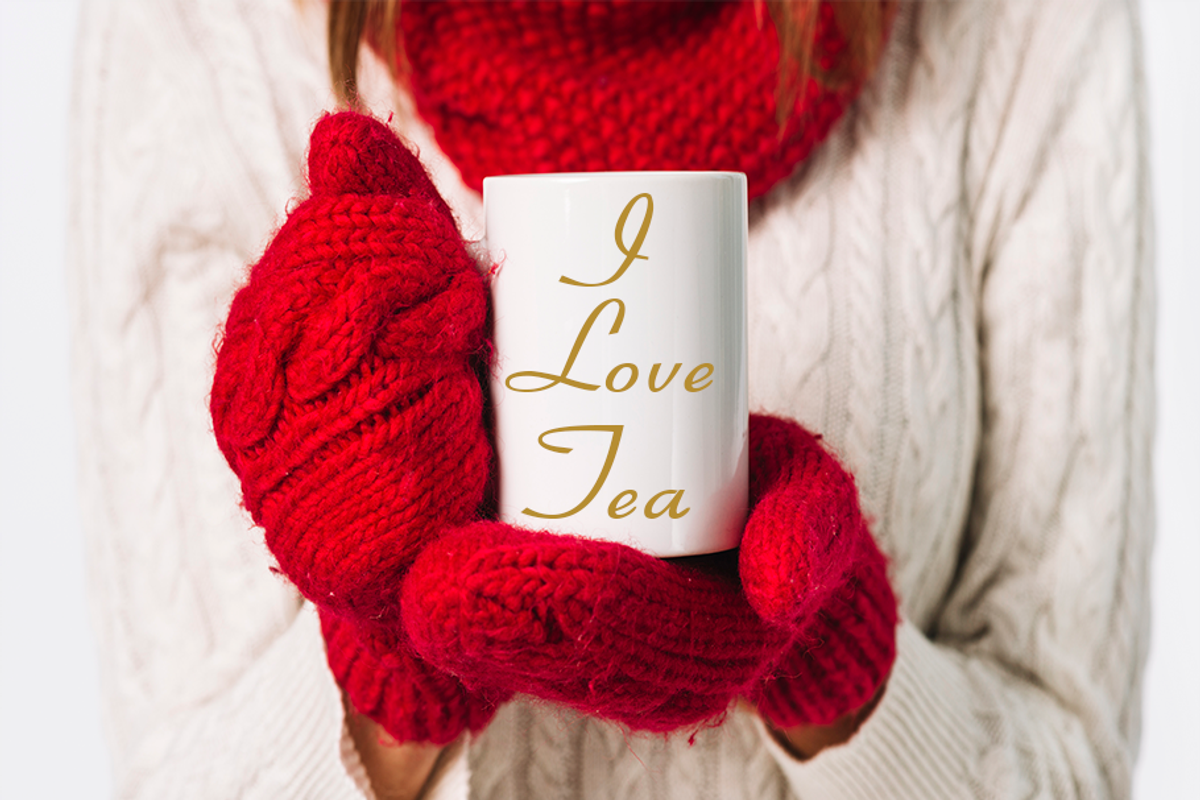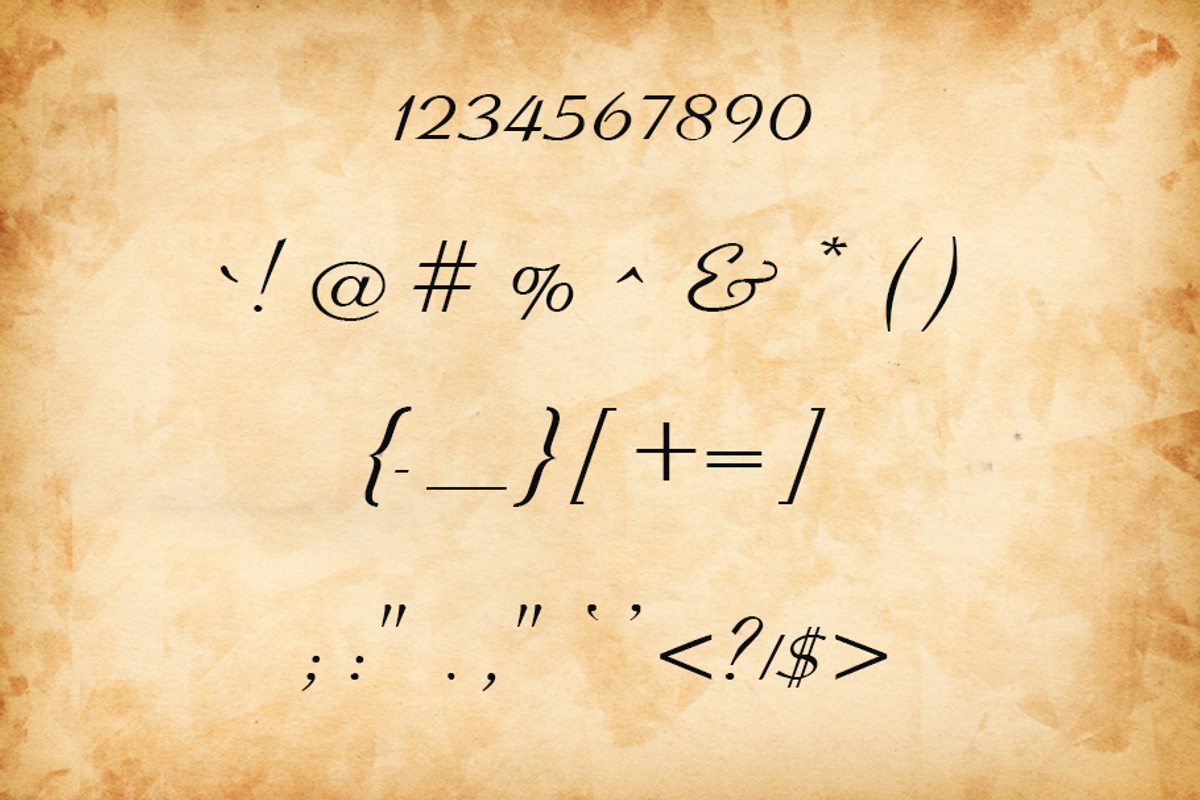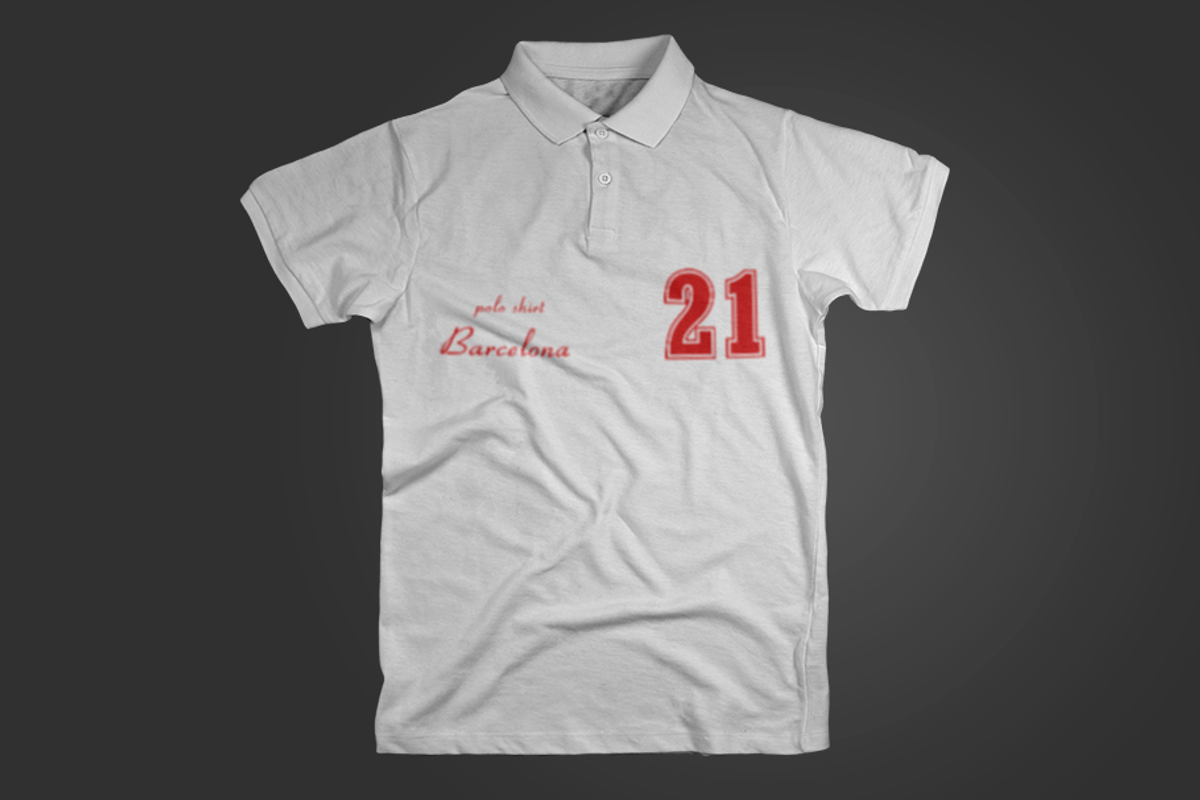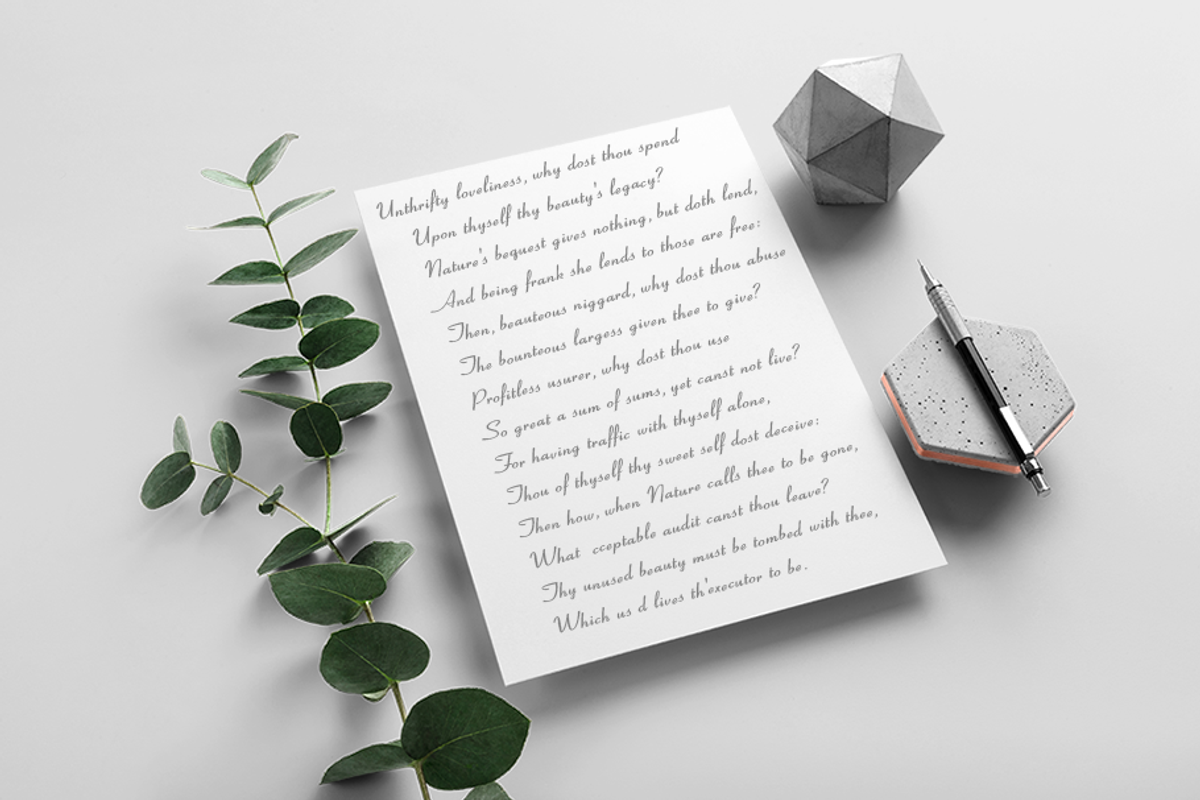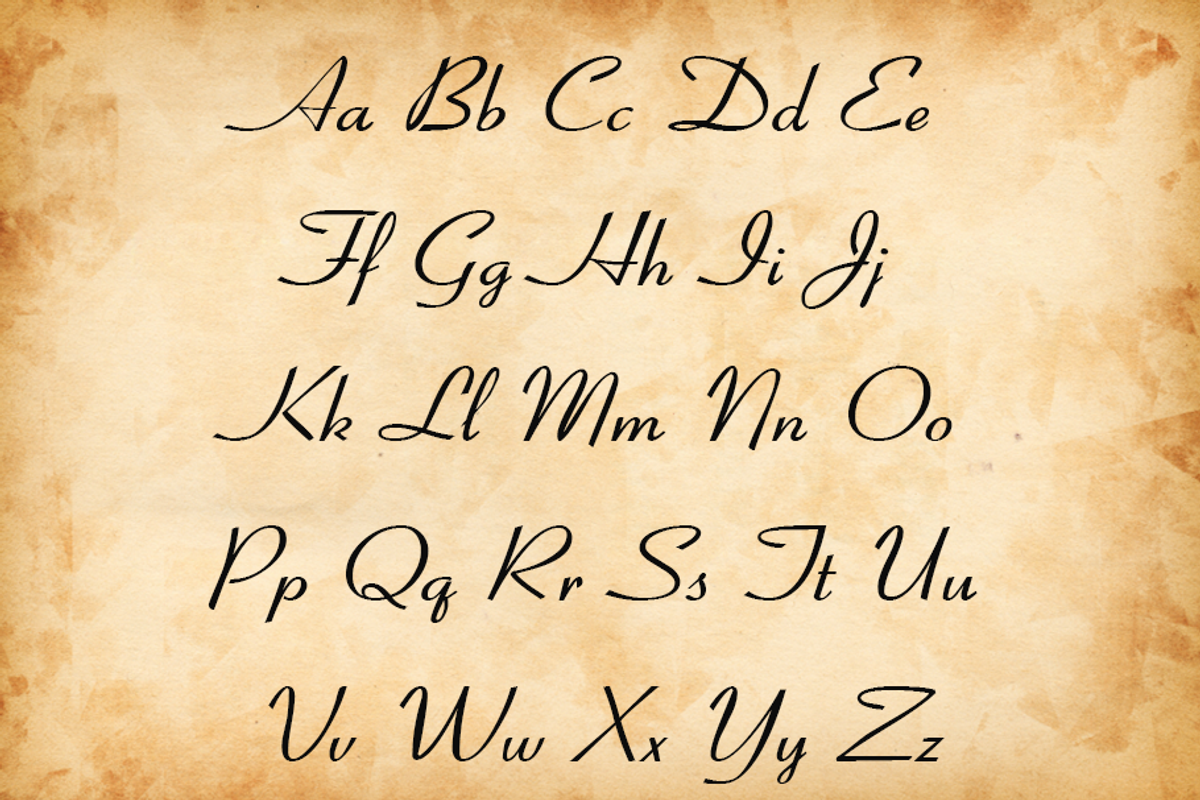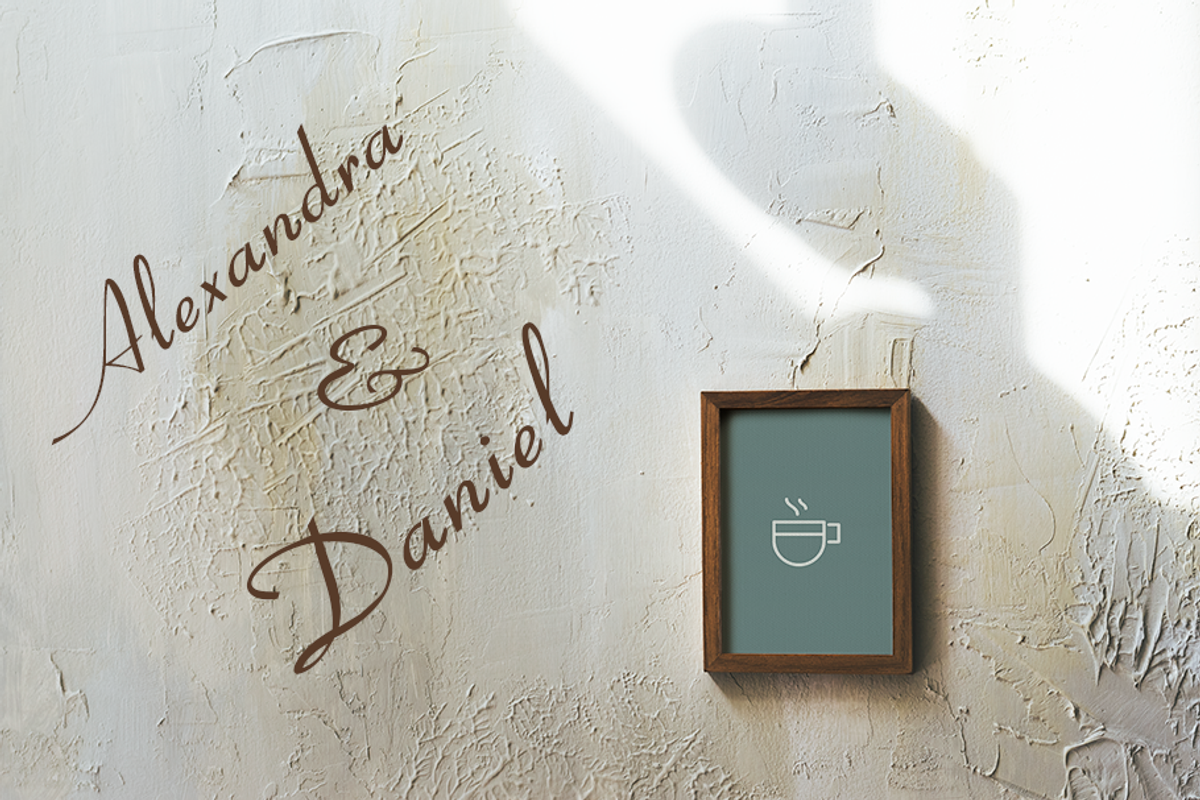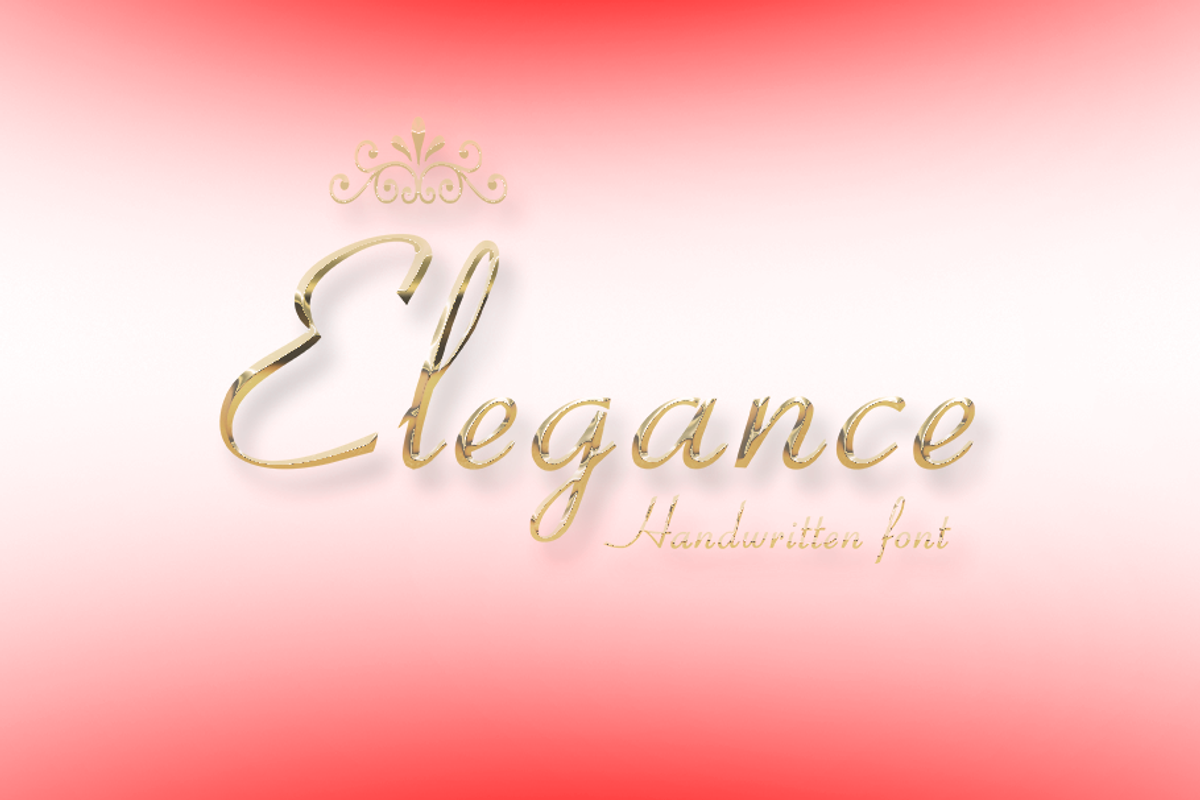
Elegance
Elegance - is a freehand calligraphic font. The slight contrast and broad proportions give it a calm, informal character that borders on calligraphy and just good handwriting. The font is suitable for short inscriptions, packaging, postcards, to create a feeling of softness, femininity and comfort.
Elegance is also included full set of:
- all uppercase and lowercase letters
- numerals
- punctuation